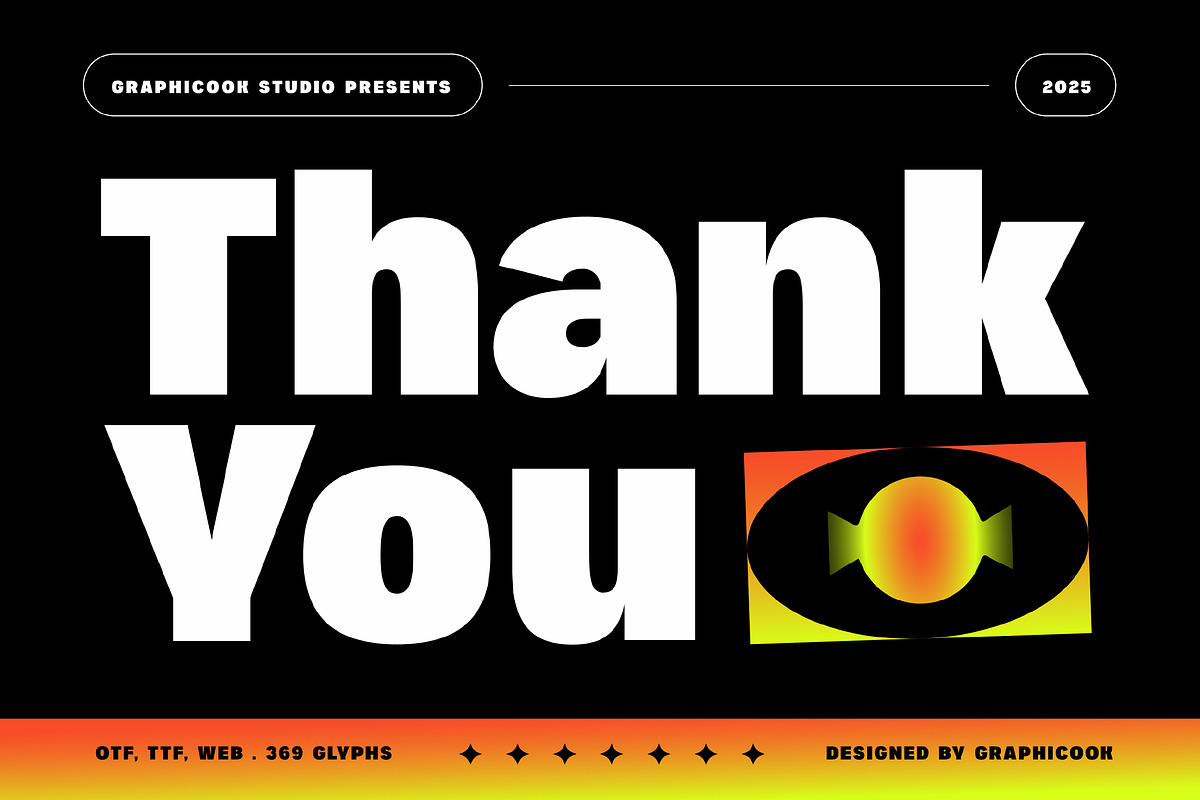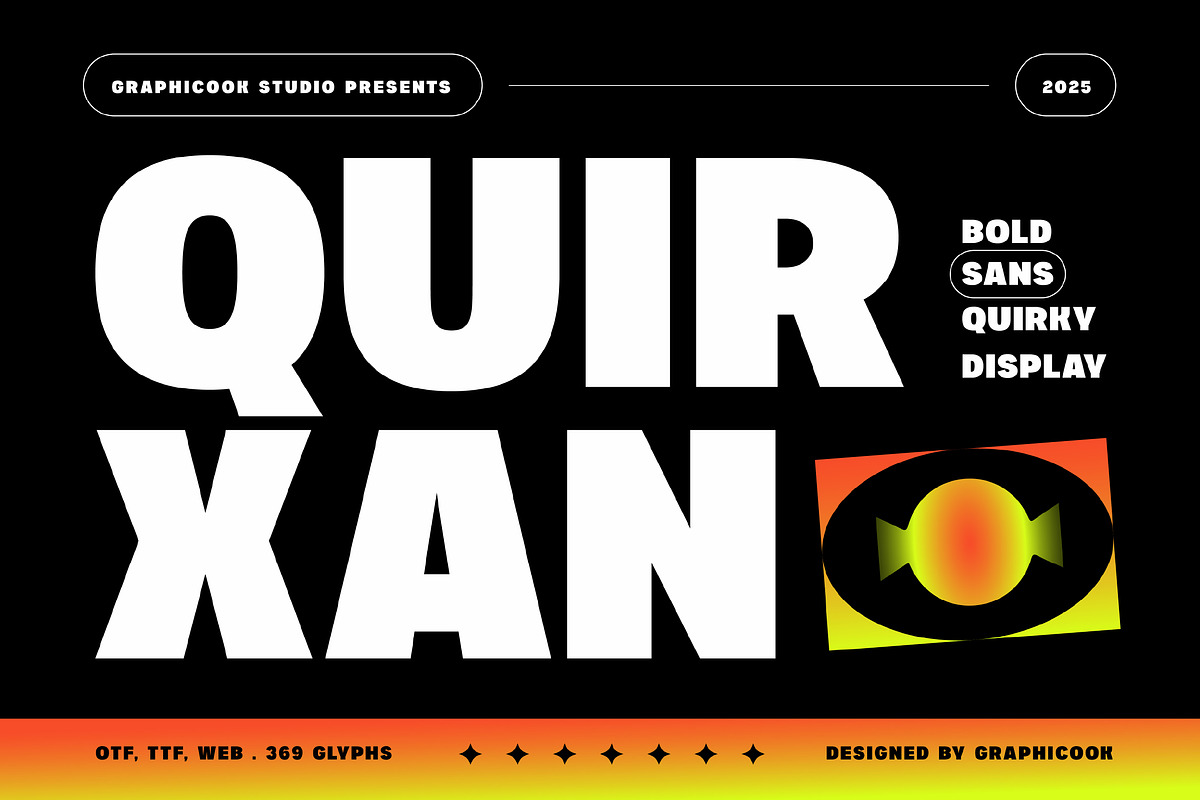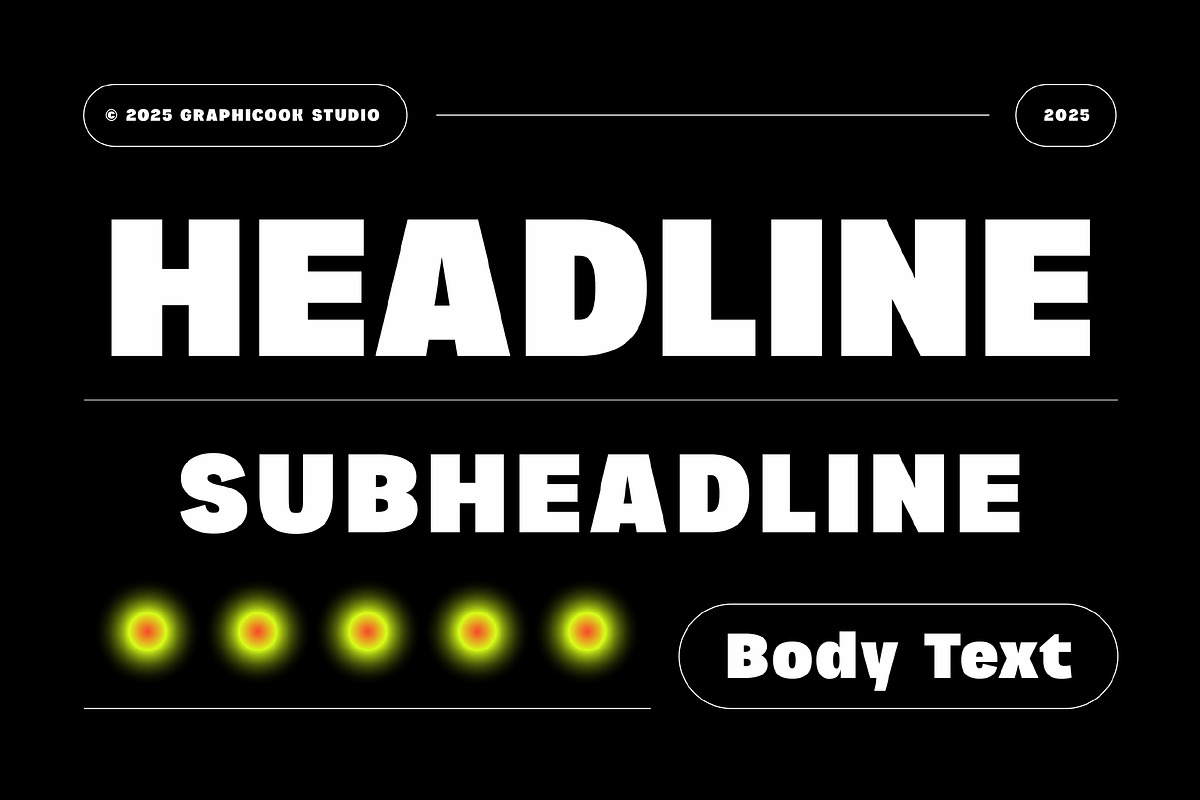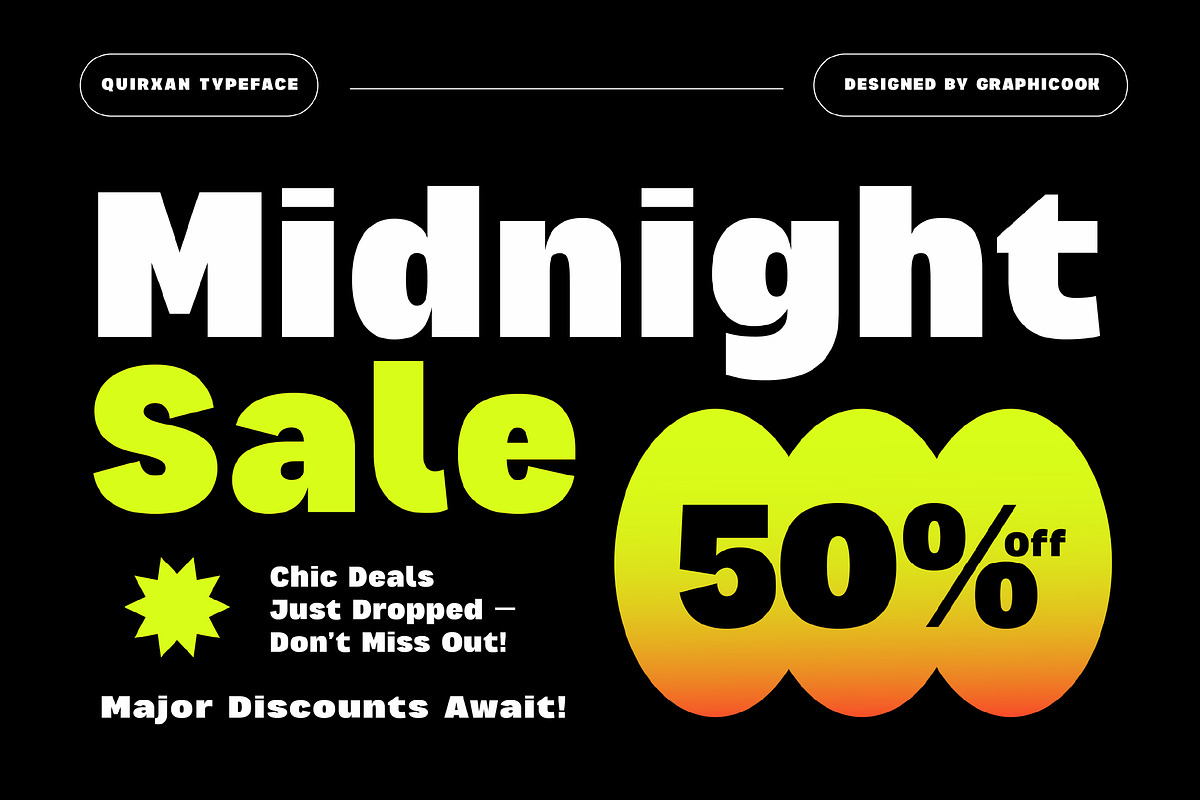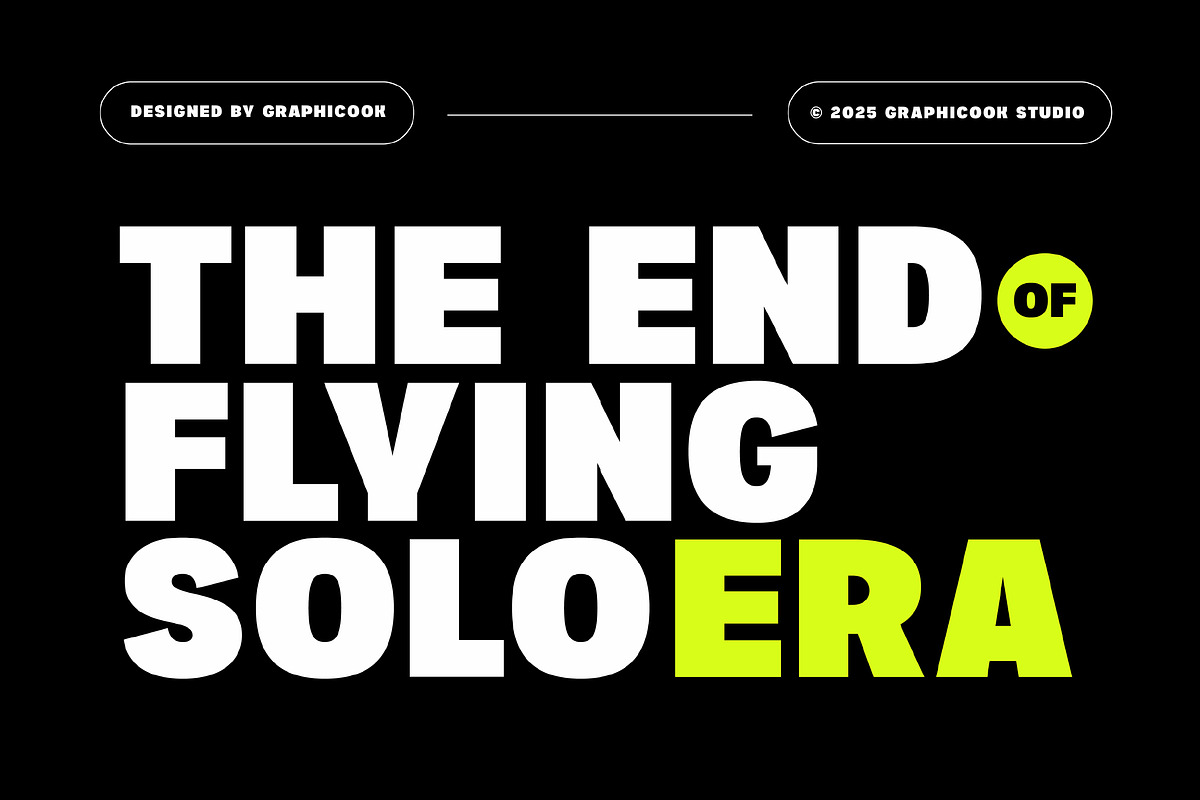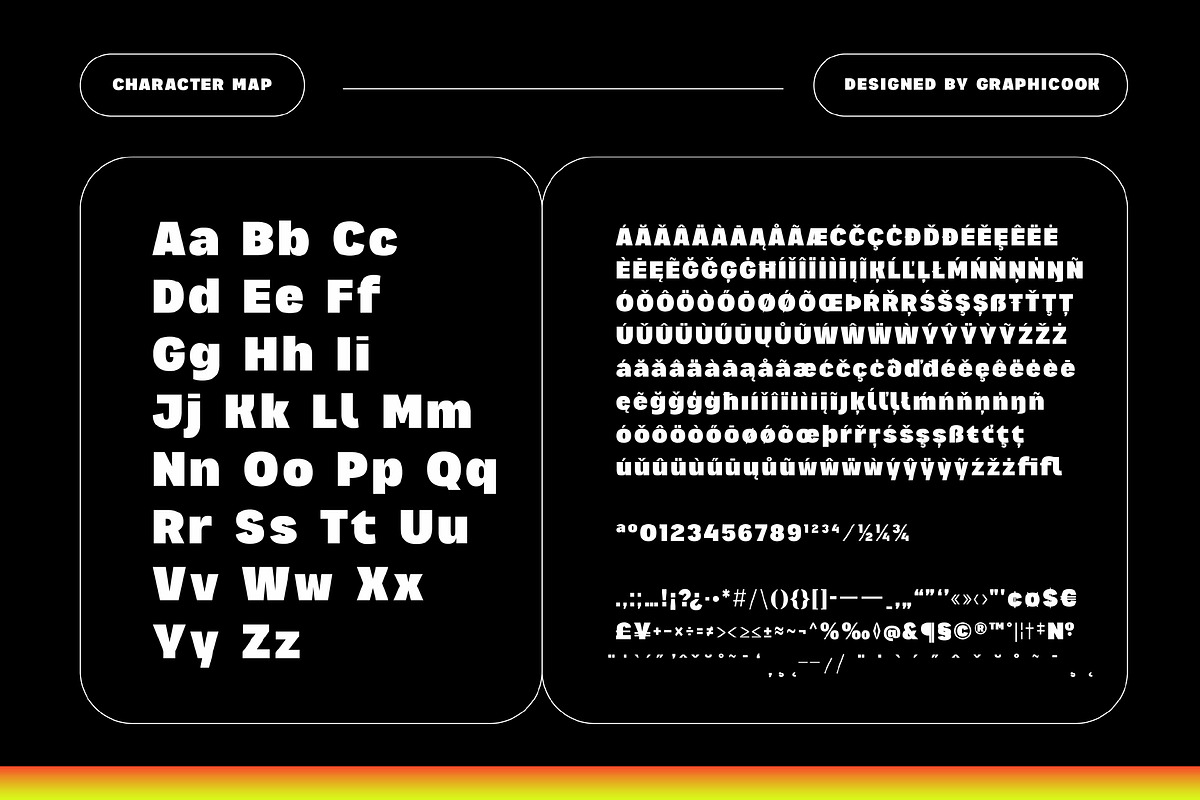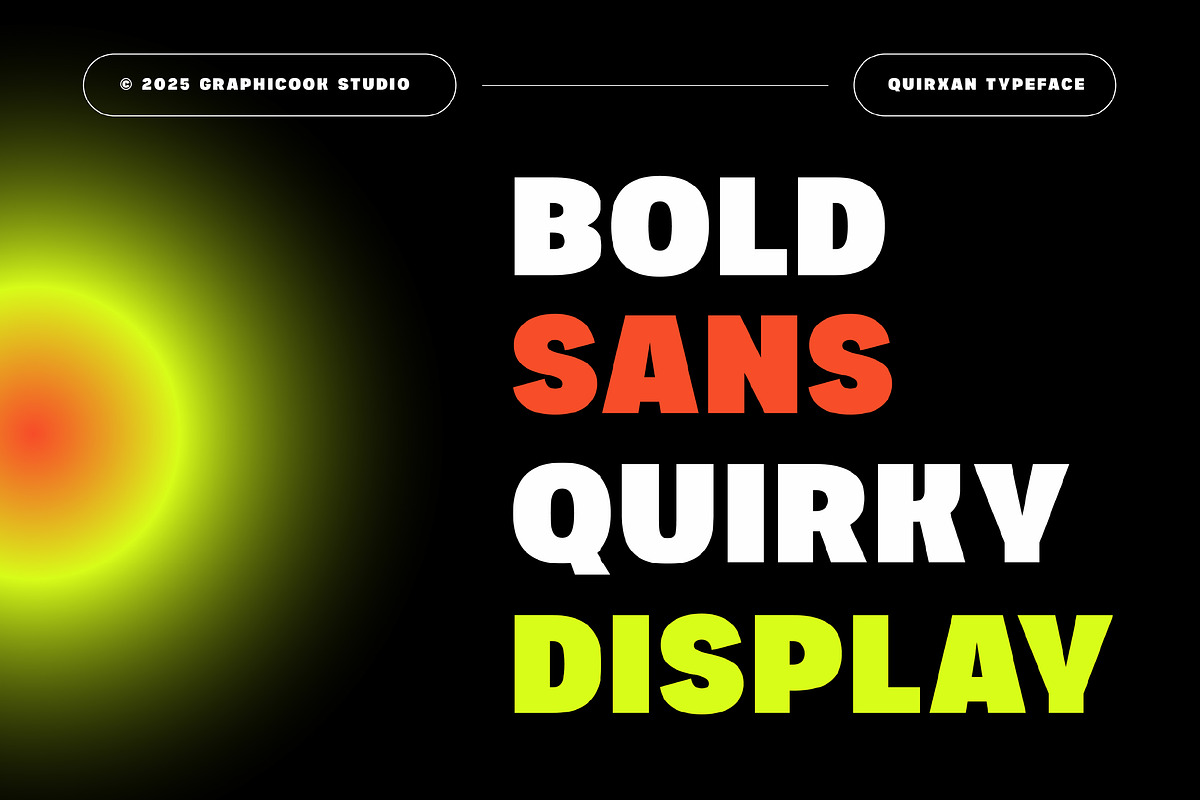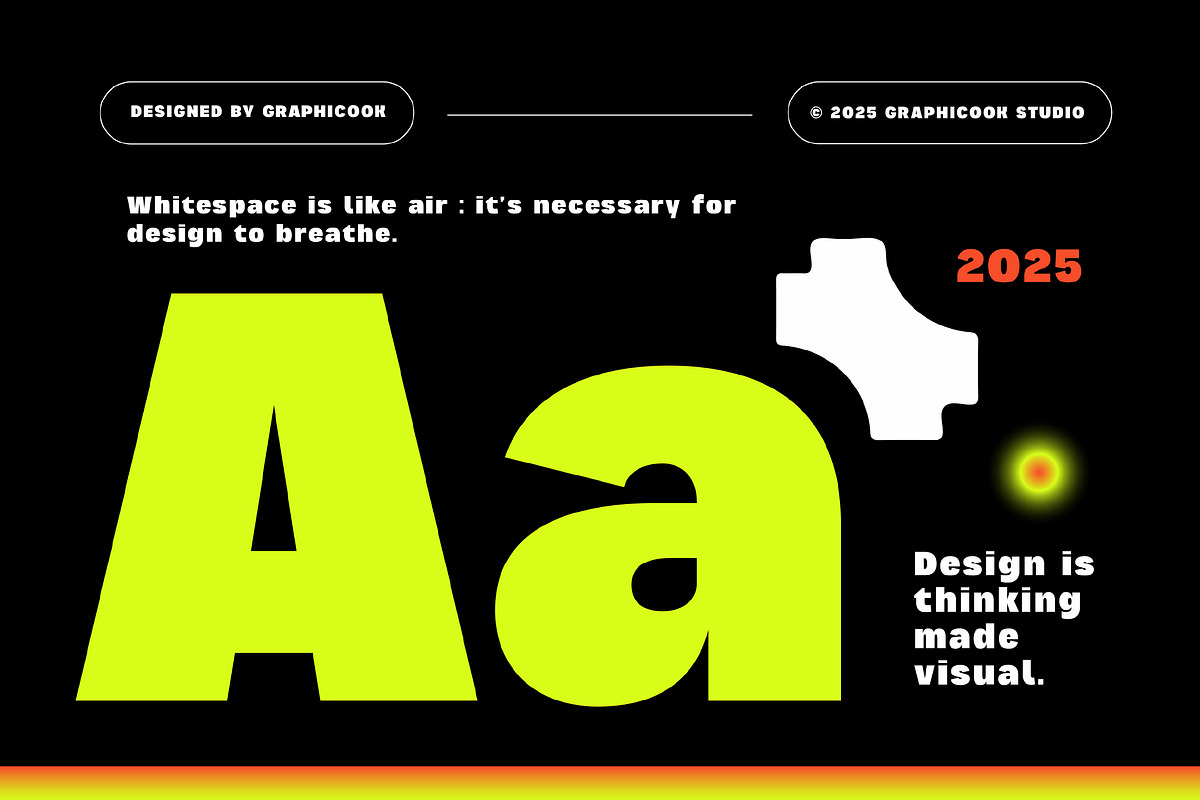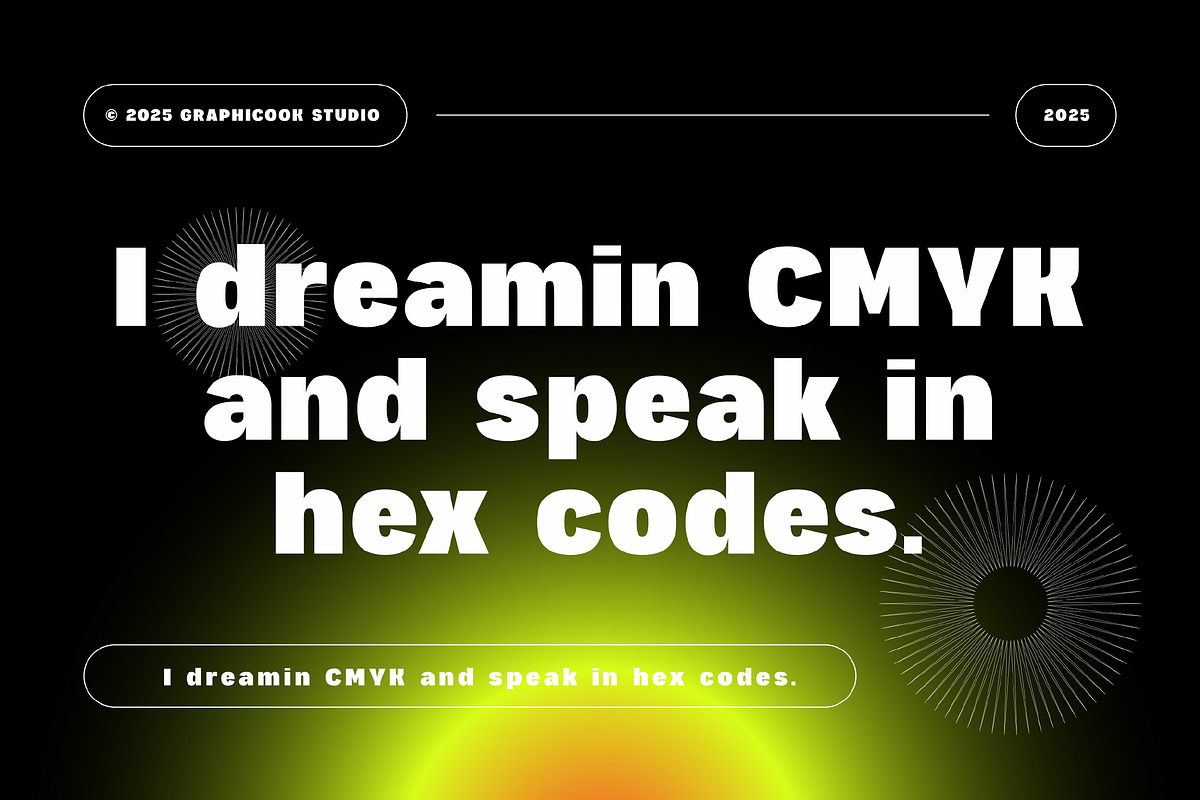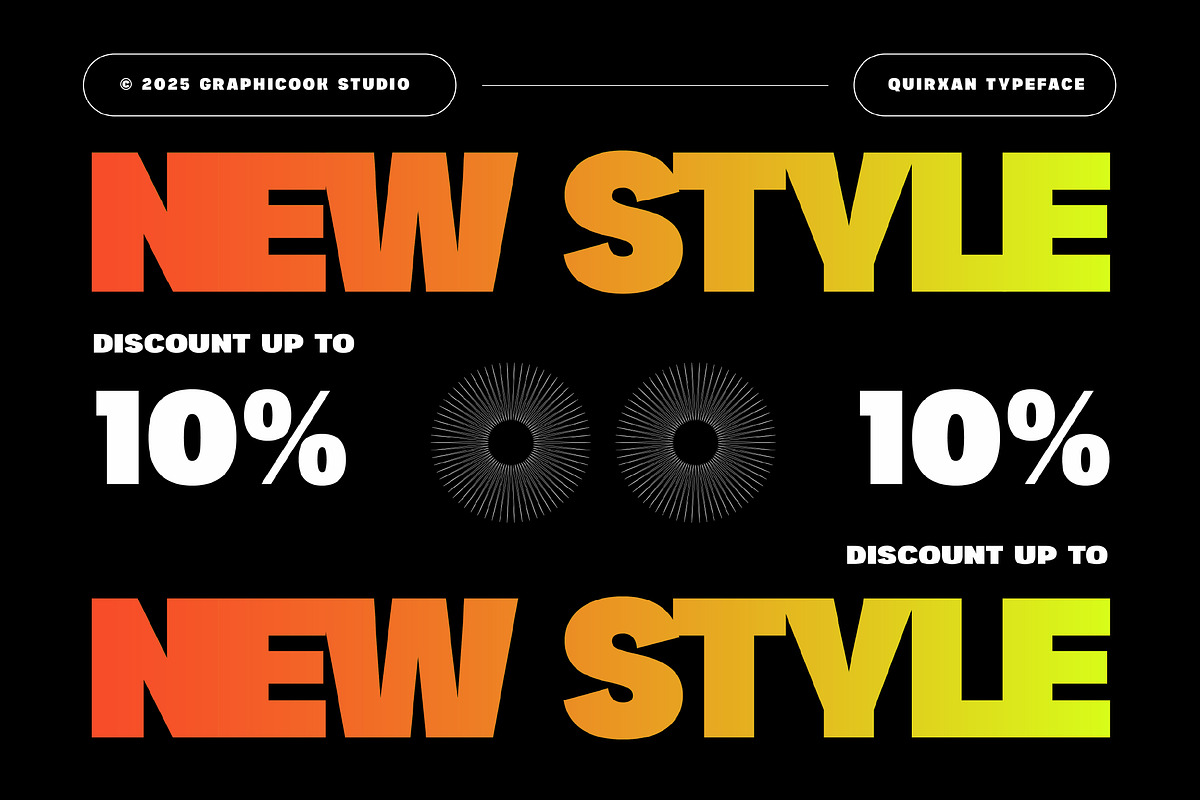
Quirxan
Quirxan is a bold sans-serif font with uniquely wide letterforms that create a strong visual impact. Great for headlines, logos, book covers, and social media content.
Quirxan is perfect for headlines, logotypes, magazines, packaging, quotes, movies, games, cover albums, book covers, and flyers, it's a perfect solution for creating eye-catching designs that stand out in any context.